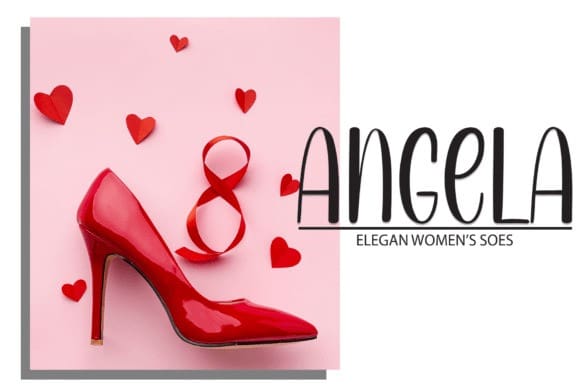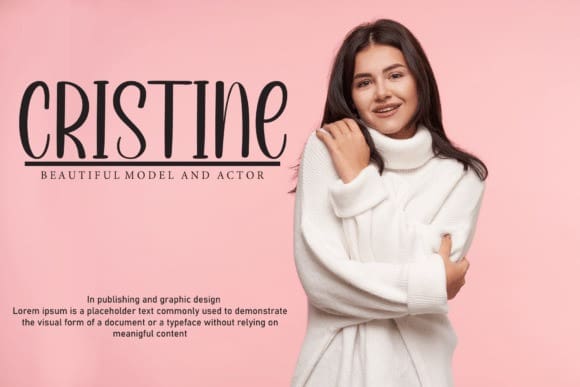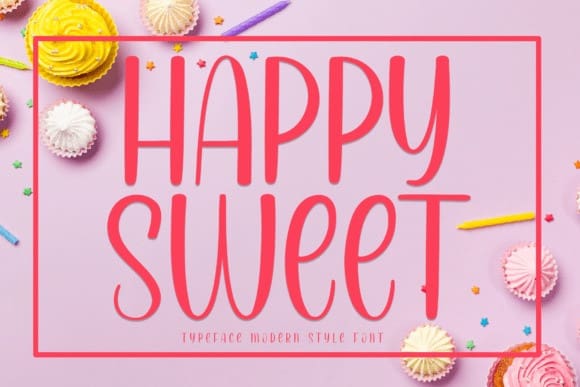
Happy Sweet Font
Happy Sweet Font is a sweet and friendly display font. Cute and fun, this font is ideal for writing wedding invitations, cards, or any other design that might need a fun touch!